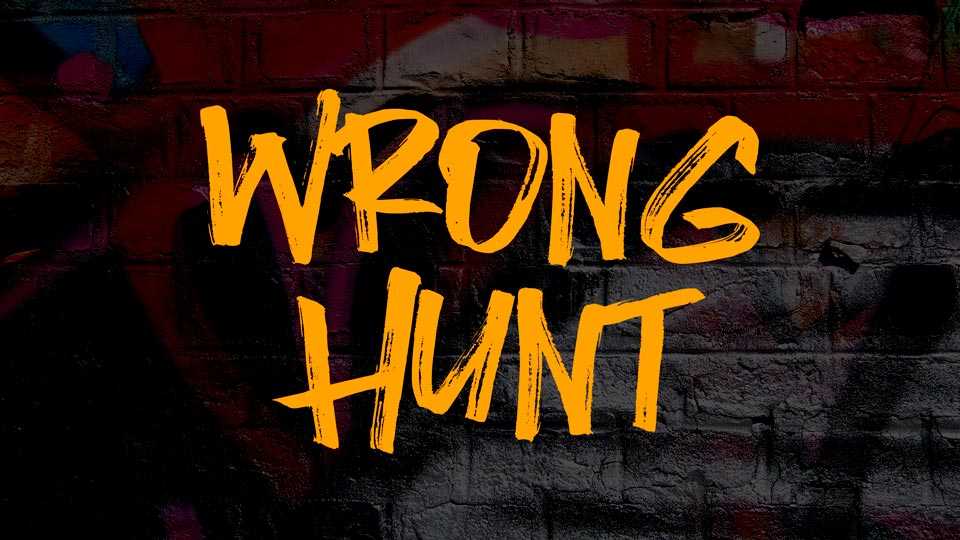
Download Wrong Hunt font, a cool hand lettered rough brush script. Wrong Hunt font looks great for posters, movie covers, banners, flyers, headlines, t-shirts and more.
Designer: Lettersiro Studio